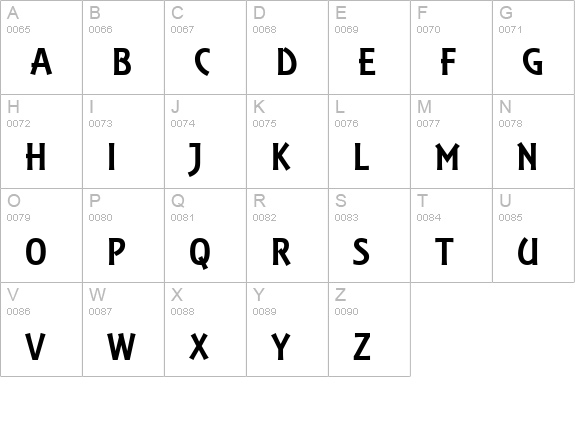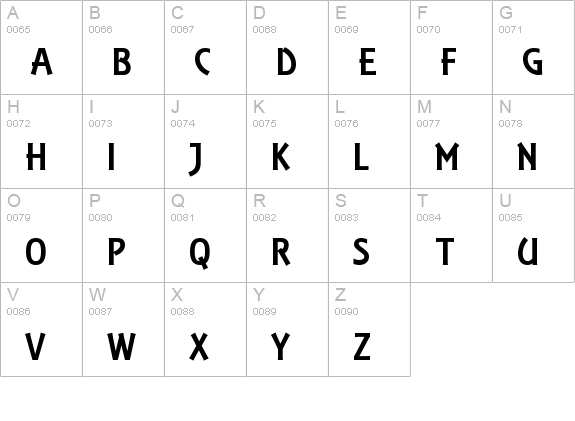
Equinox LET Font Details
Equinox LET font is a beautifully designed typeface that seamlessly blends elegance and modernity. With its sleek and stylish appearance, this font is perfect for a wide range of design projects, from branding to advertising to editorial layouts. The clean lines and smooth curves of Equinox LET font exude sophistication and class, making it a versatile choice for both print and digital applications. The best part? Equinox LET font is completely free to download at FontsMarket.com. Whether you're a professional designer looking to add a fresh new font to your collection or a hobbyist experimenting with typography, this font is sure to inspire creativity and elevate your designs. Don't miss out on the opportunity to enhance your projects with the timeless charm of Equinox LET font - download it for free today and let your creativity shine!